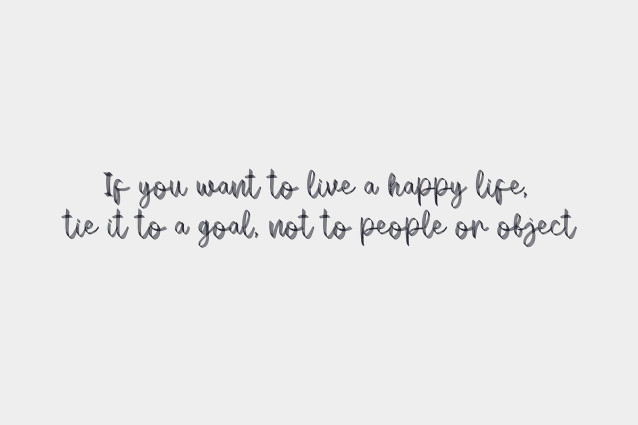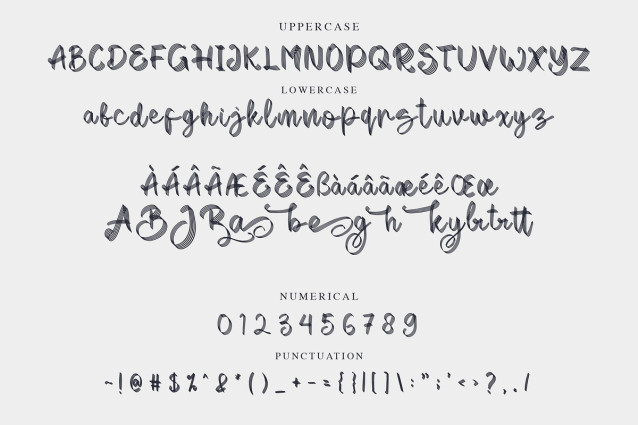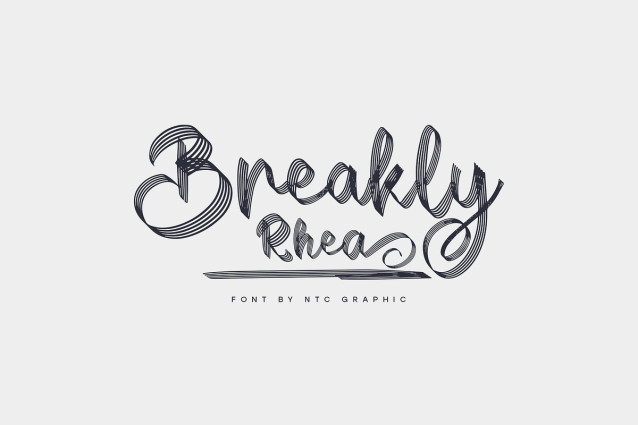
Breakly Rhea Font
Breakly Rhea Font is a beautiful script font with multiple line handwritten style. Is a font style that is made with handwritten scratches shapes font characters are very beautiful. Can be applied to support the graphic appearance of the product to be more attractive and unique.